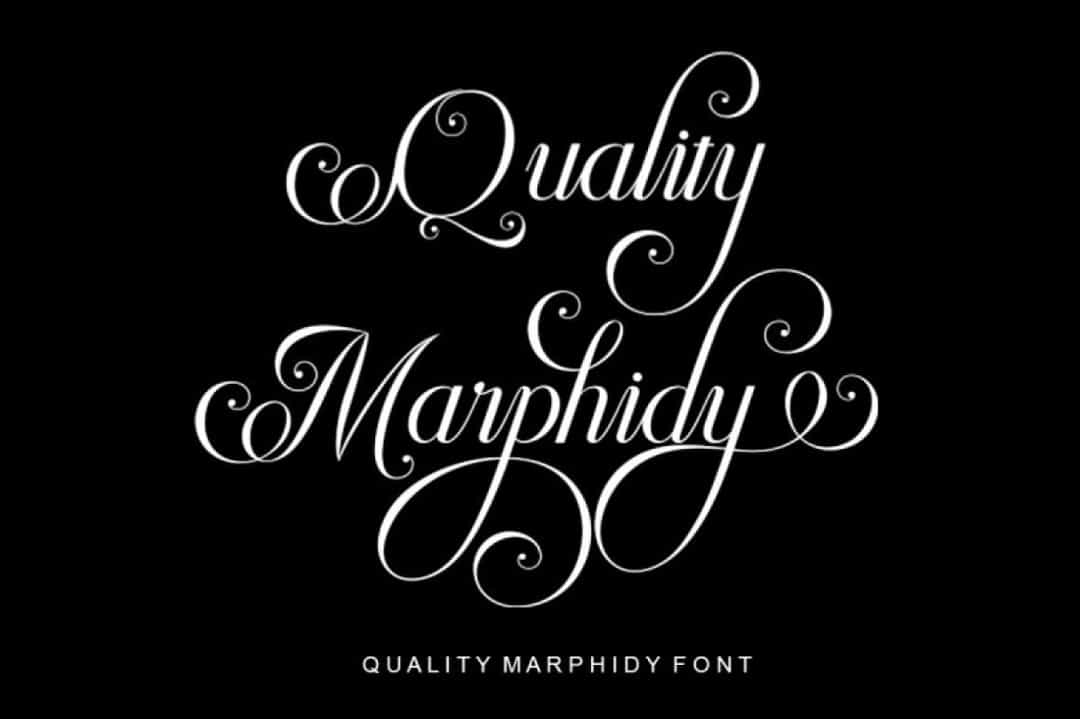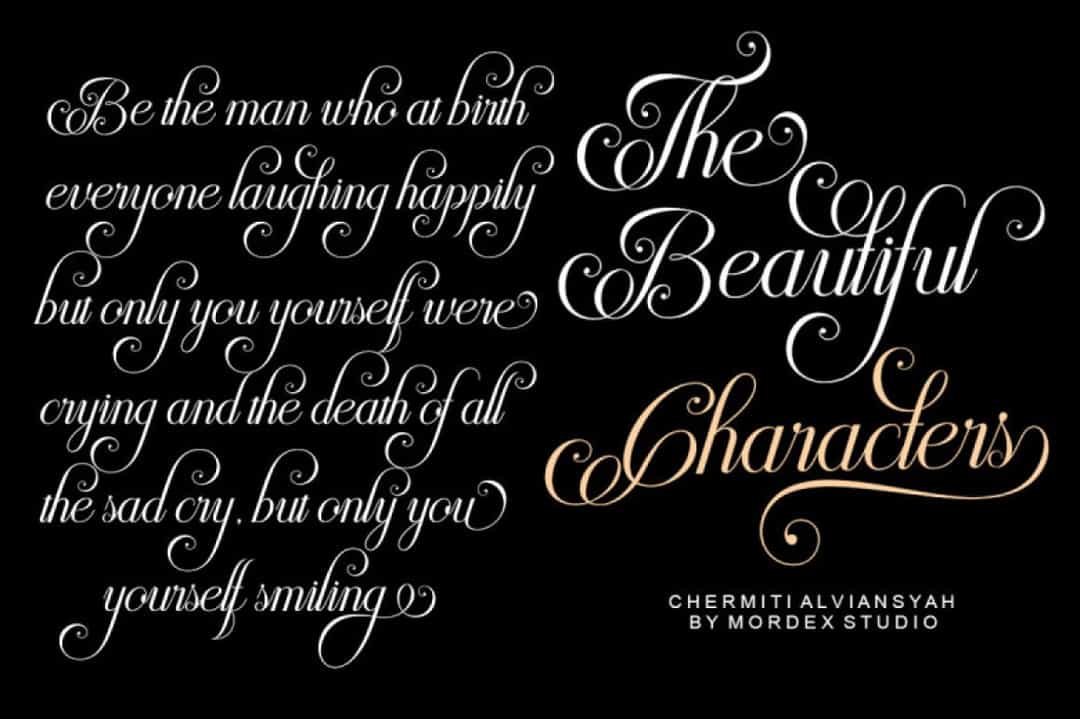
Marphidy can be described as an exquisite script calligraphy font with charming, playful characters that dance across its base. PUA encoded, this font provides access to all glyphs and swashes without hassle!